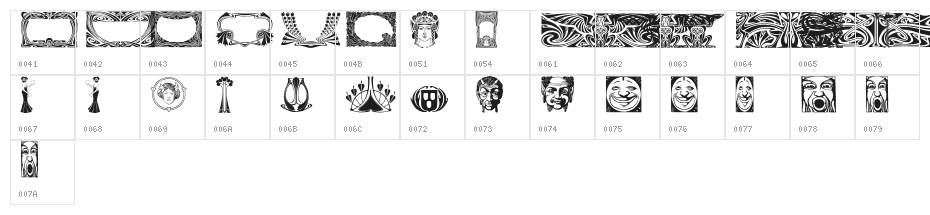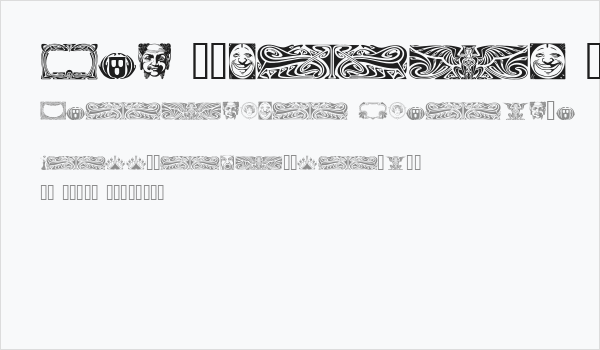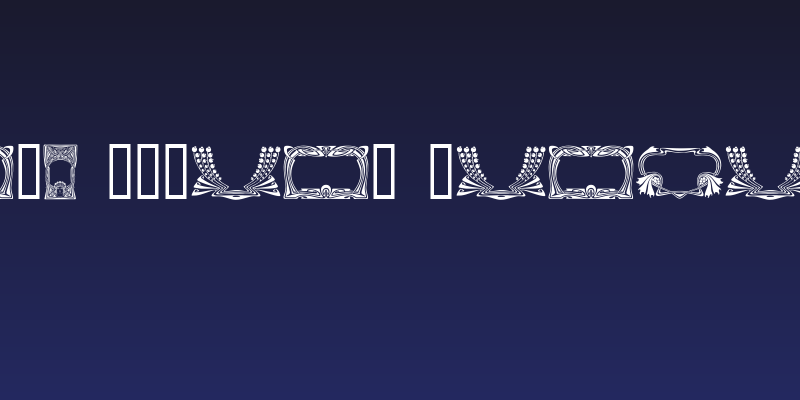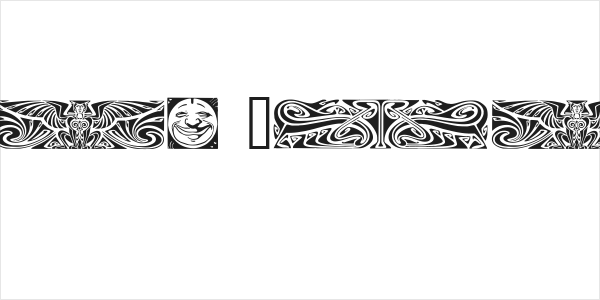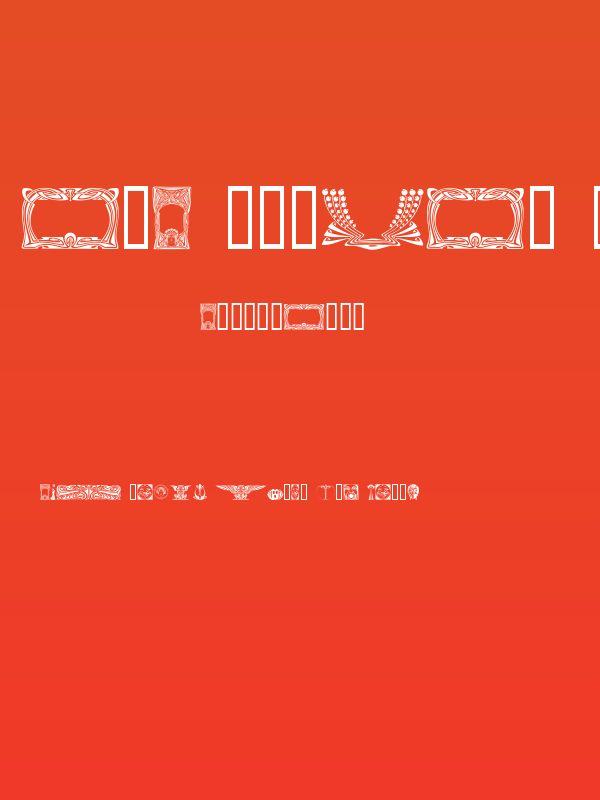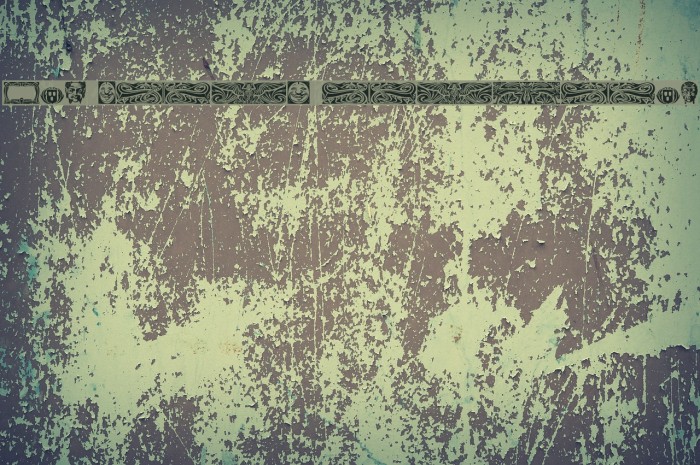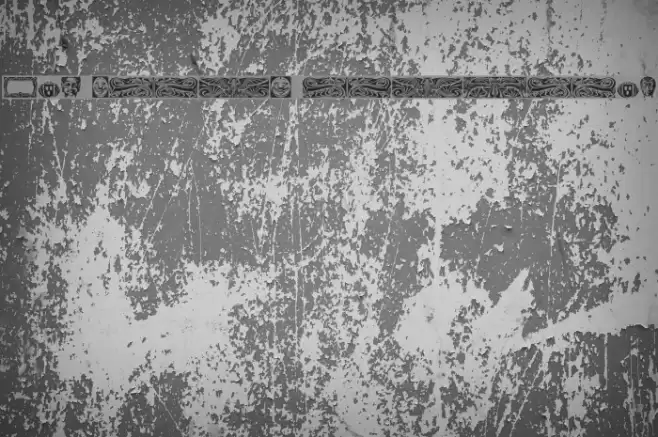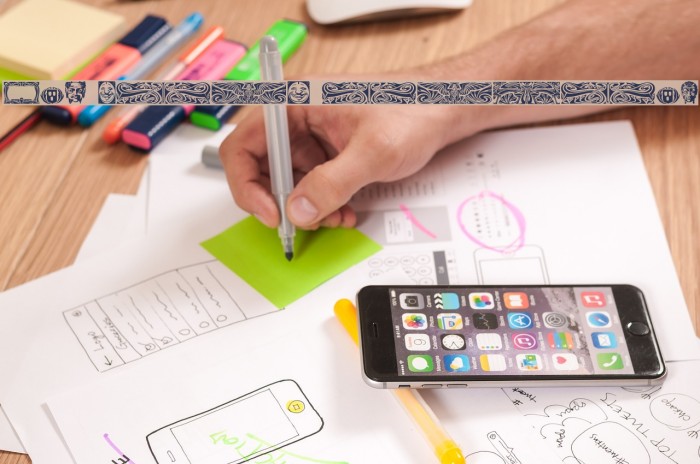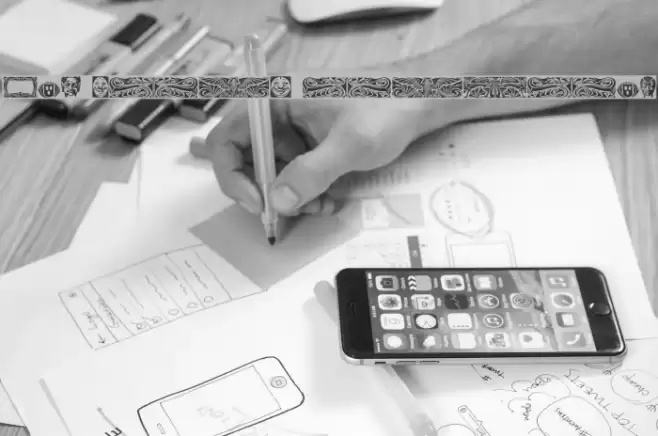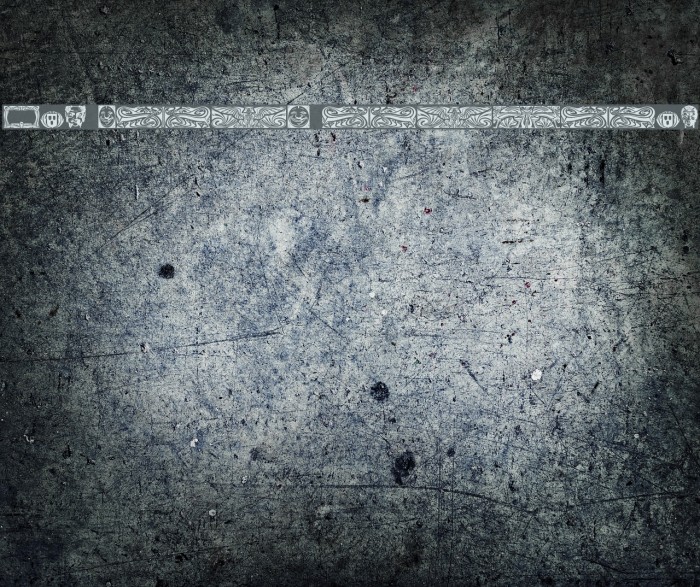
Art Noveau Headers Font
Art Noveau Headers Description
This decorative font is inspired by the Art Nouveau movement, characterized by its intricate and ornamental design elements. The font features elaborate borders and frames that incorporate natural forms and flowing lines, often with floral motifs and stylized figures. The characters are not traditional letters but rather decorative elements that can be used as headers or embellishments in design projects. The style is reminiscent of early 20th-century art and architecture, capturing the elegance and fluidity of the era. Each character is a unique piece of art, making it suitable for projects that require a touch of vintage sophistication and artistic flair.
| Overall Style | Vintage |
| Proposed Projects | Ideal for vintage-themed invitations, decorative headers, artistic posters, and branding that requires an elegant, historical touch. |